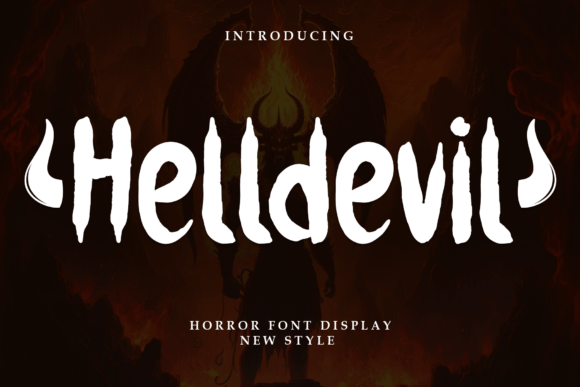
Helldevil Font: Bold Display Type for Handmade Labels & Printables
If you’ve ever spent hours tweaking a candle label only to realize the font lacks punch—or designed a wedding welcome sign that feels too safe—then Helldevil Font is the display typeface your shop has been waiting for. As someone who hand-presses tags, cuts vinyl for boutique signage, and designs printable planner pages sold on Etsy, I don’t reach for fonts just because they’re “edgy.” I reach for them because they convert browsers into buyers—and Helldevil delivers that shift in perception, instantly.
Helldevil isn’t subtle. Its sharp, angular terminals, high-contrast strokes, and tightly spaced, dramatic letterforms create immediate visual tension—without sacrificing legibility at medium to large sizes. Think of it as the typographic equivalent of a well-fitted leather jacket: rebellious, intentional, and unmistakably memorable. It’s not a body text font—and it shouldn’t be. Helldevil lives where impact matters most: on product labels, die-cut stickers, framed wall art, SVG cut files, and seasonal packaging that stands out on crowded shelves or Instagram feeds.
For physical product makers, readability during production is non-negotiable. I’ve tested Helldevil across multiple cutting machines—including Cricut Maker 3 and Silhouette Cameo 4—and found its clean outlines hold up beautifully at 0.25” height on vinyl stickers and 0.75”+ on kraft paper tags. The uppercase letters especially shine: strong verticals, uncluttered counters, and consistent stroke weight mean clean cuts, minimal weeding, and crisp results even on textured surfaces like burlap or matte cardstock. Just avoid scaling below 12pt for printed greeting cards—its drama needs breathing room.
Pairing Helldevil thoughtfully keeps your brand feeling cohesive—not chaotic. My go-to combos: a warm, slightly irregular script (like *Belleza* or *Cinzel Decorative*) for contrast and movement, or a neutral, highly legible sans serif (*Inter*, *Poppins*, or *Lato*) for supporting text. Avoid pairing it with other bold display fonts—that’s visual shouting. Instead, let Helldevil lead, then step back with calm, functional type. For wedding suites, I often layer it over a delicate serif like *Cormorant Garamond*—the contrast says “modern tradition,” not “design conflict.”
What sets Helldevil apart from other “bold” display fonts isn’t just its edge—it’s how it behaves in real-world making. It doesn’t pixelate on mockup previews. It doesn’t collapse when scaled for 2” sticker sheets. It doesn’t look aggressive in context—it looks *intentional*. That nuance matters when your customer is choosing between your $8 printable quote poster and ten others in the same search. Helldevil gives your work gravity. Not noise. Not trend-chasing. Just confident, crafted presence.
I keep Helldevil in my “hero font” folder—not for every project, but for the ones where the words need to land like a signature. When “Small Batch. Big Flavor.” goes on a hot sauce label. When “Est. 2022” appears above a hand-poured soy wax candle. When “Welcome Home” greets guests at a farmhouse Airbnb. In those moments, typography isn’t decoration. It’s quiet persuasion. And Helldevil persuades without saying a word.